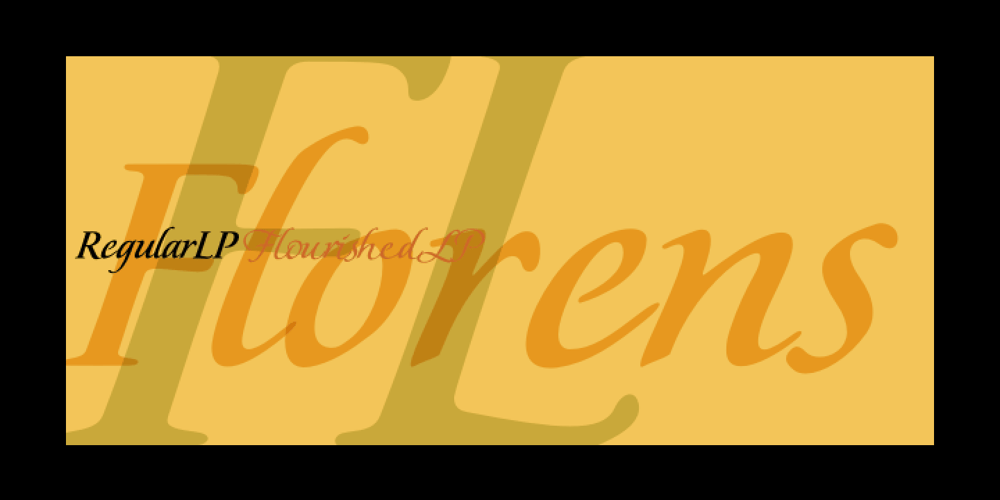
Florens LP Font Family was designed by Garrett Boge and published by LetterPerfect. Florens LP contains 2 styles and family package options. Florens is a flourished, semi-formal script that designer Garrett Boge modeled after his own italic calligraphy, which is a contemporary version of the chancery script of the Italian Renaissance. In addition to the standard character set, a Flourished font provides old-style figures, special dingbats, and swash variants for all upper and lowercase characters.